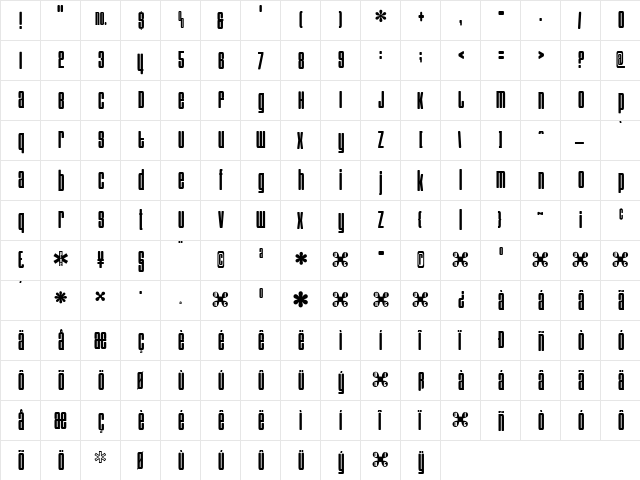
DuoJet Regular Font Preview
DuoJet Regular
Design Context for DuoJet Typeface
DuoJet is a composed and adaptable typeface that performs quietly and consistently across a wide range of design contexts.